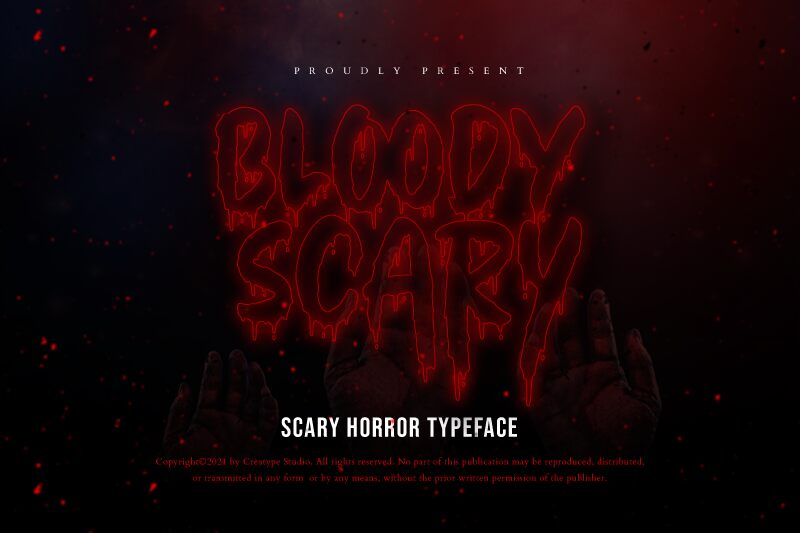
Bloody Scary font by Creatype Studio is a horrific bold display font with grungy and jagged letters. The horror-themed design is made even more unsettling with a particular dripping effect present across the alphabet. Overall, it’s a gothic style typeface with a scary character that will send chills down your viewers’ spines.